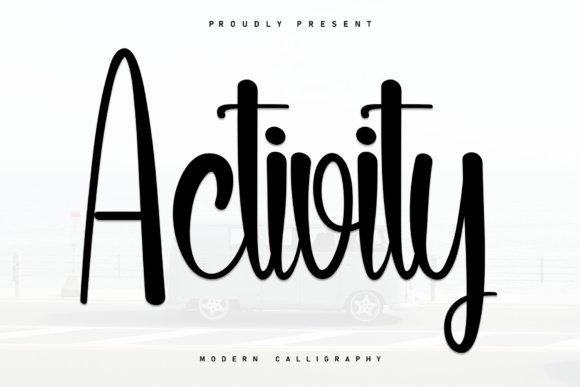
The Sweet Charm of Activity Font: A Designer’s Delight
I’ll never forget the time I was working on a cozy home decor project for a client, and I just couldn’t find the right font to bring the design together. The project required a warm, inviting feel, but every font I tried seemed either too formal or too bland. That’s when I stumbled upon the Activity font, and it was love at first sight! ✨
Activity is a sweet and beautiful handwritten font that features characters dancing along the baseline, adding a playful touch to any design project. In this article, I’ll share my honest review of the font, provide a practical guide on how to use it, and explore similar fonts and alternatives.
- Unique and playful character design that adds a cozy accent to any project ✅
- Perfect for designs that require a personal touch, such as invitations, greeting cards, and social media graphics 📨
- Works well with both digital and print designs, including branding, packaging, and advertising 📦
- Easy to read and understand, even at smaller font sizes 📚
- May not be the best choice for very formal or corporate designs ⚠️
- Some characters, like the uppercase letters, can be a bit quirky and may require adjustments for optimal use 🤯
- Experiment with OpenType features, such as glyphs and stylistic alternates, to add more personality to your text
The Story Behind Activity Font
The Activity font was designed with the intention of creating a unique and playful handwritten font that would add a personal touch to any design project. The designer aimed to create a font that would evoke a sense of coziness and warmth, making it perfect for designs that require a friendly and approachable feel.
Q: What is the Activity font best used for?
A: The Activity font is best used for designs that require a personal touch, such as invitations, greeting cards, social media graphics, and branding projects.
Q: Is the Activity font suitable for very formal designs?
A: No, the Activity font may not be the best choice for very formal or corporate designs, as it has a playful and quirky character.